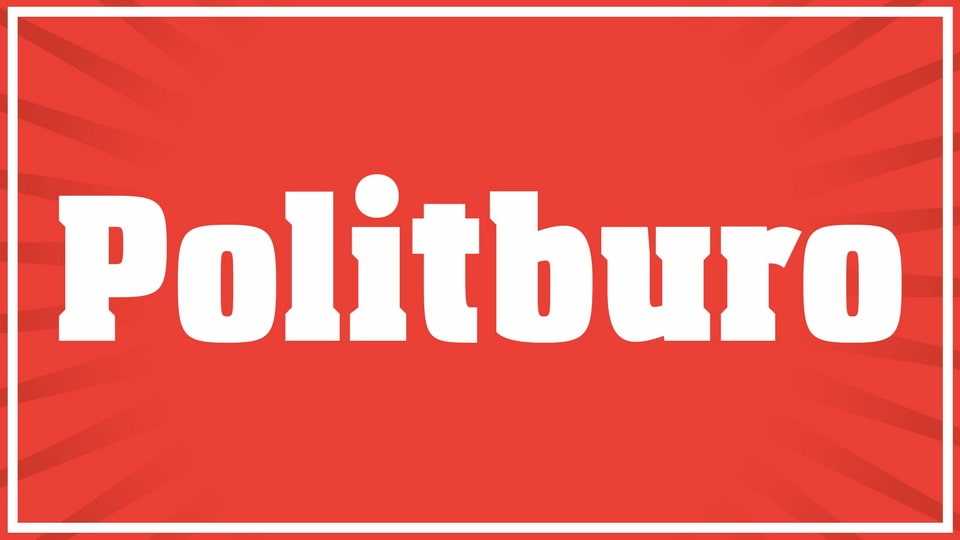
Download Politburo font, a striking, extremely expressive display typeface, inspired by Communist lettering. With its strong and assertive letterforms, Politburo font pays homage to the bold and powerful visual language of that era.
Designer: Sergey Shishin